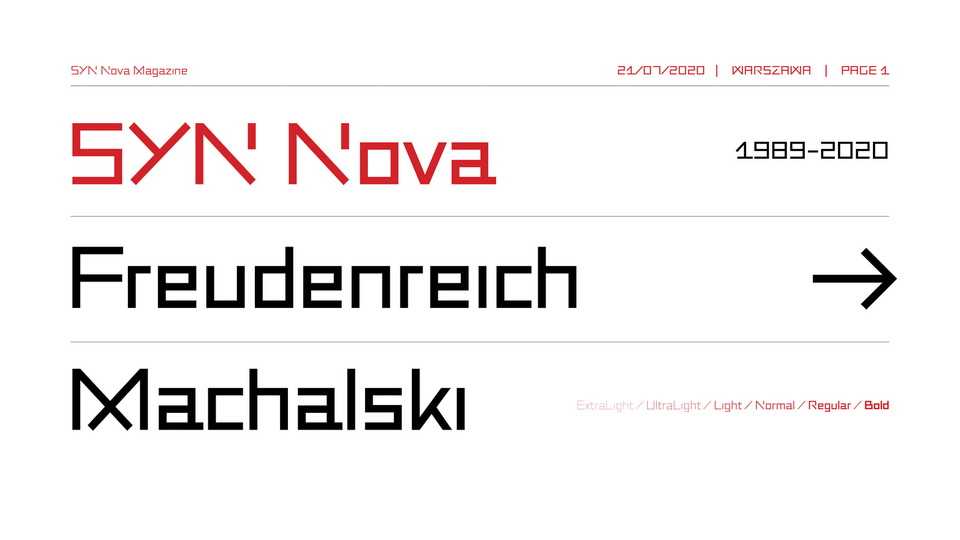
SYN Nova Font Family › Fontesk
Download SYN Nova typeface, a digitization project of SYN, futuristic font family in five weights, including variable. The concept, besides giving it a digital form, was to expand the character set, design minuscule and opentype features for the typeface.